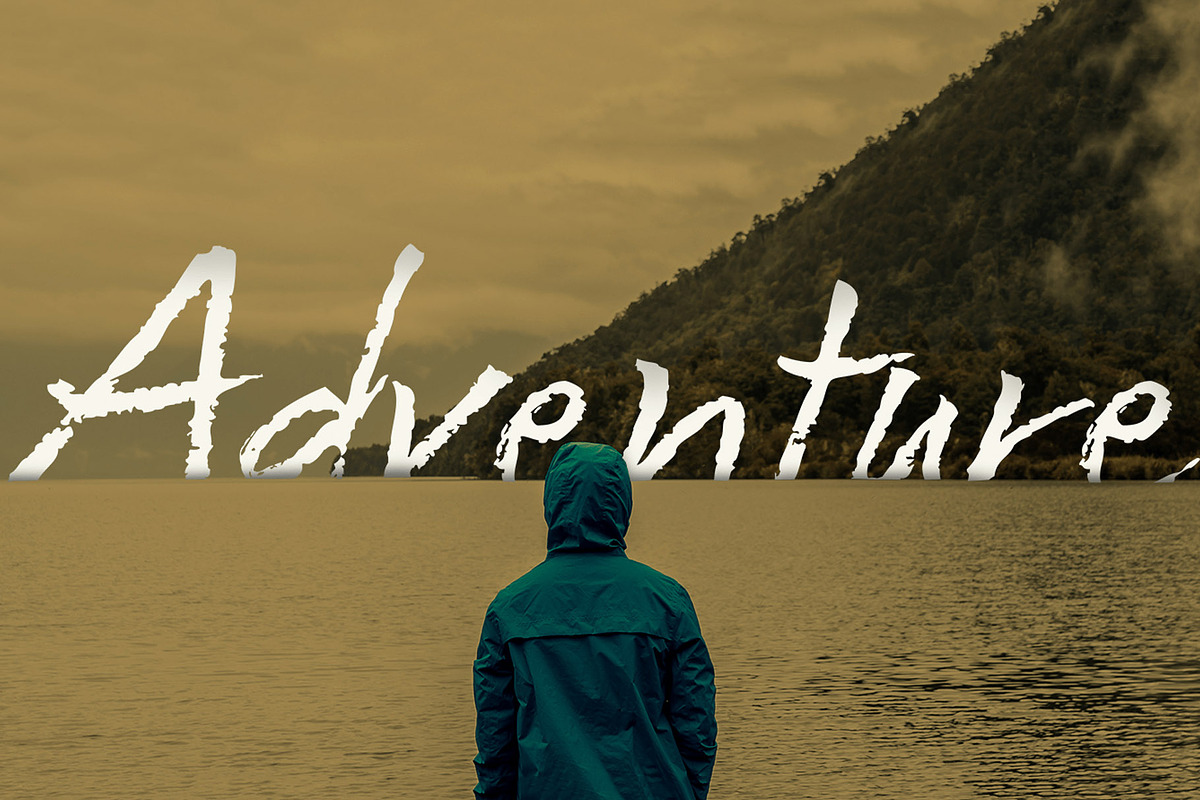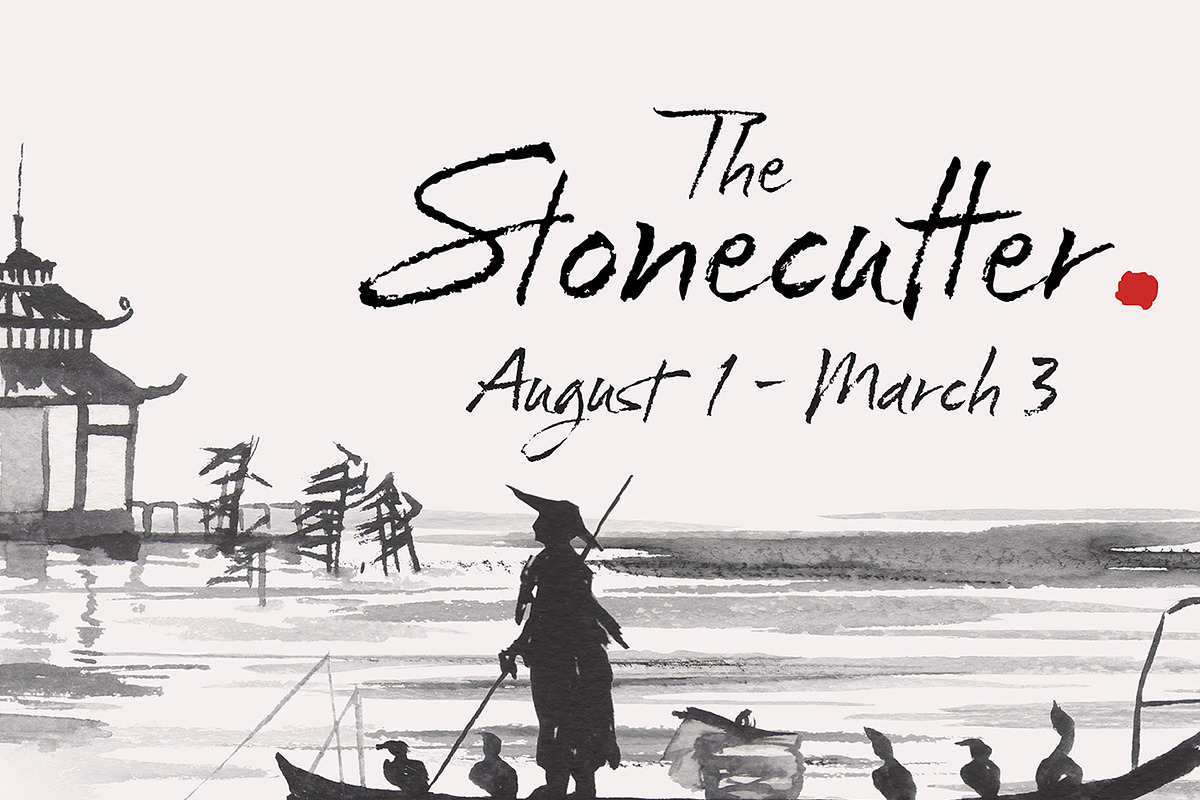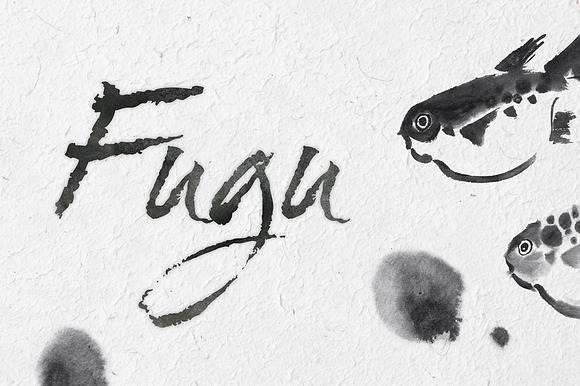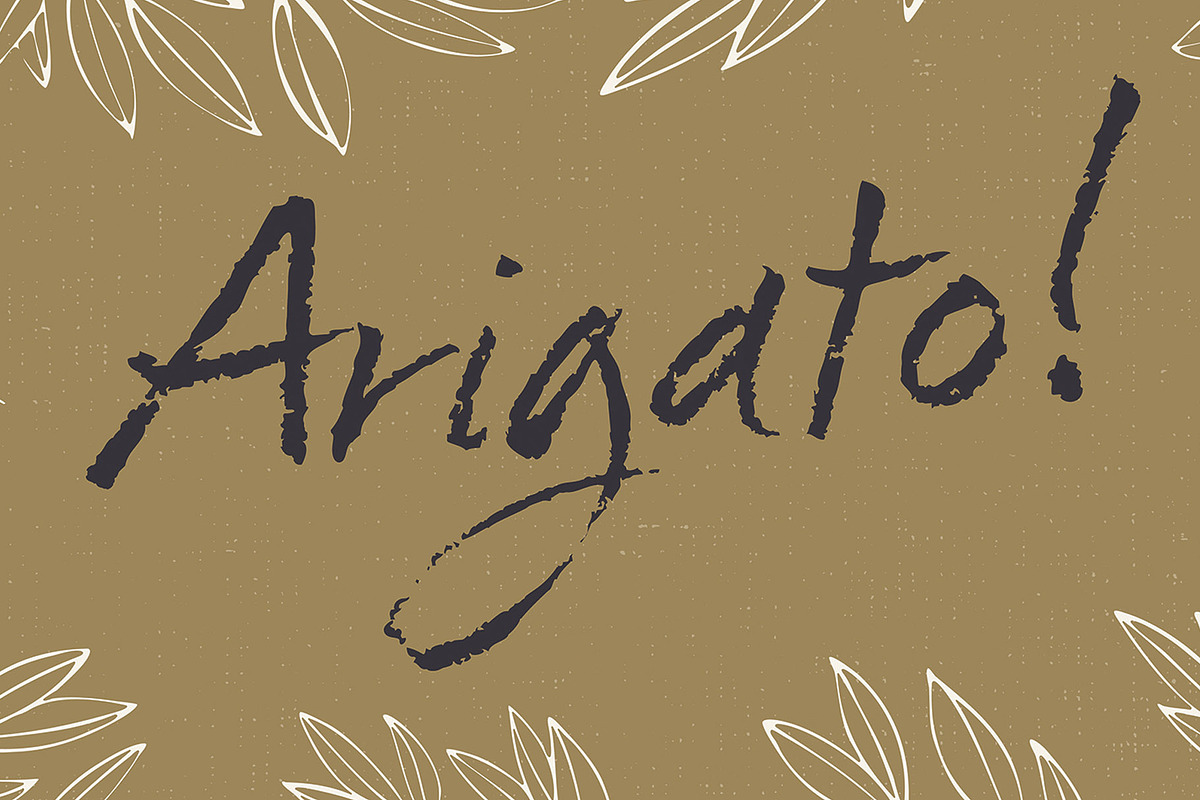
Fugu Script Typeface
When Baka and Baka Too did very well commercially (Baka was named the Best Cursive Rough Script in 2005), I shied away from doing rough, handwritten scripts in fear as being seen as a one-trick-pony. A few years have passed and some early sumi-e brush ‘doodles’ kept appealing to me. I initially thought this new font would just fall under the Baka mantle and just become a new sibling, but as brush hit paper over and over again, the letters took on a different personality from Baka.
This new font was turning out to be far more expressive, smooth and rough, tasty but sticky. This dichotomy demanded a new name. The rough and smooth texture suggested the name Fugu—oddly delicate while rough and functional.
As part of Neil Summerour &Positype's Relaxed Script Font Series, this typeface features a number of OpenType features that includes a number of Stylistic, Swash, and even Titling alternates. These typefaces are expertly craft and perfect for any use where you are wanting a personal or casual touch, including: invitations, weddings, social media, packaging, branding, stationery, and print advertising.